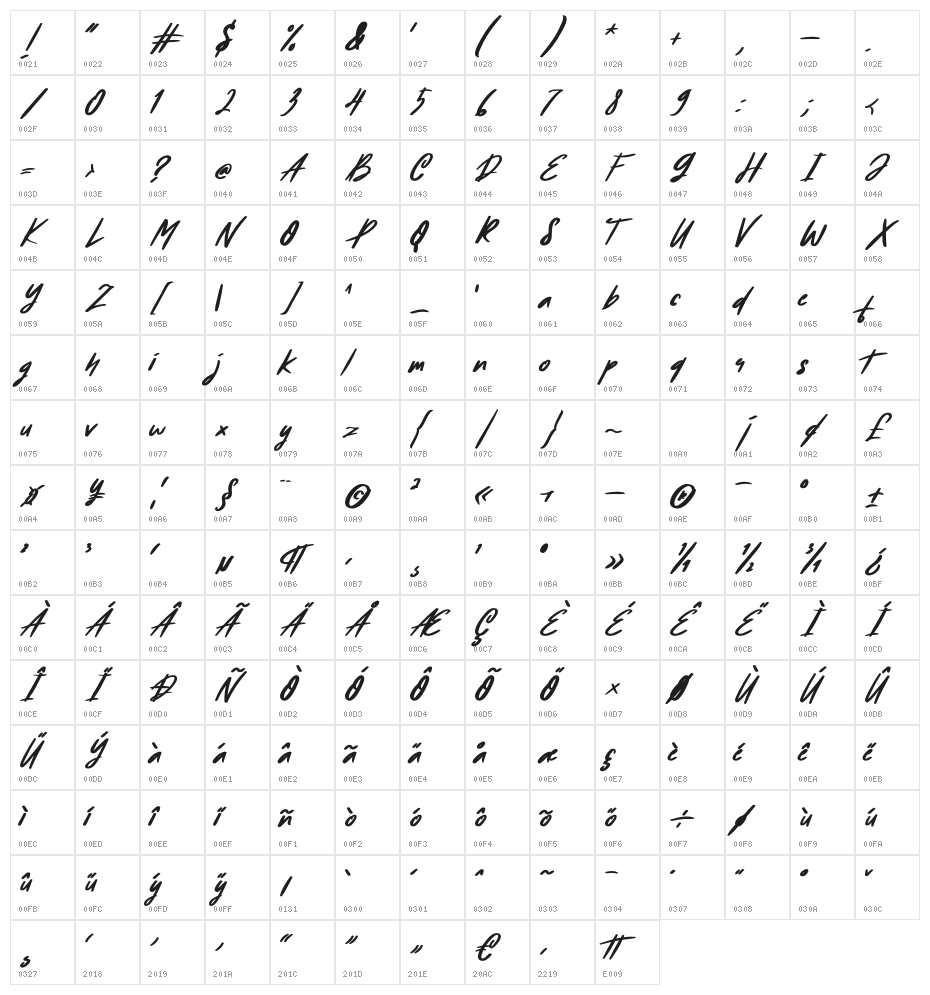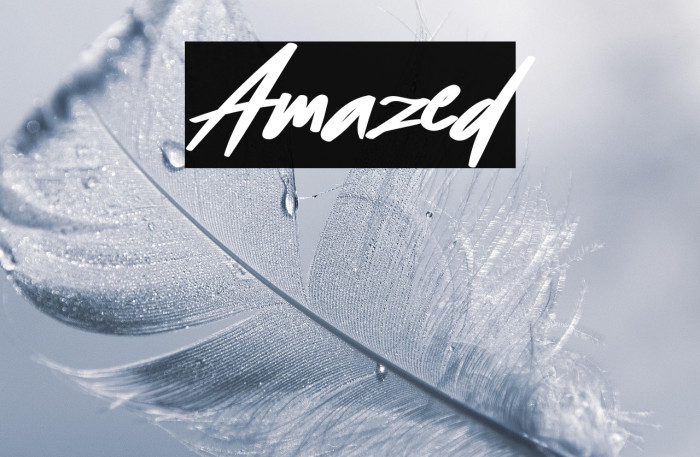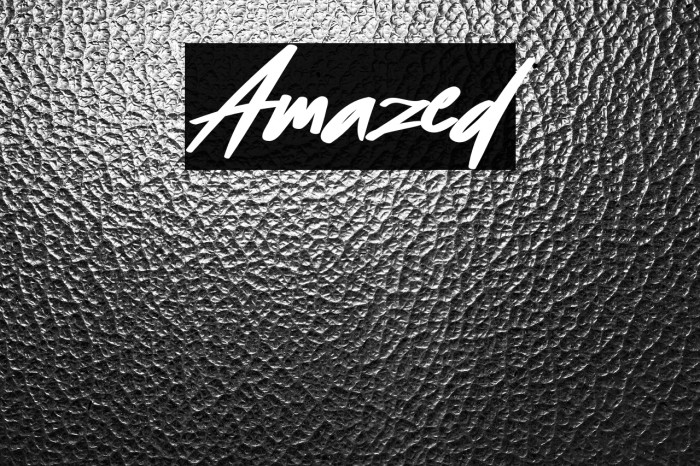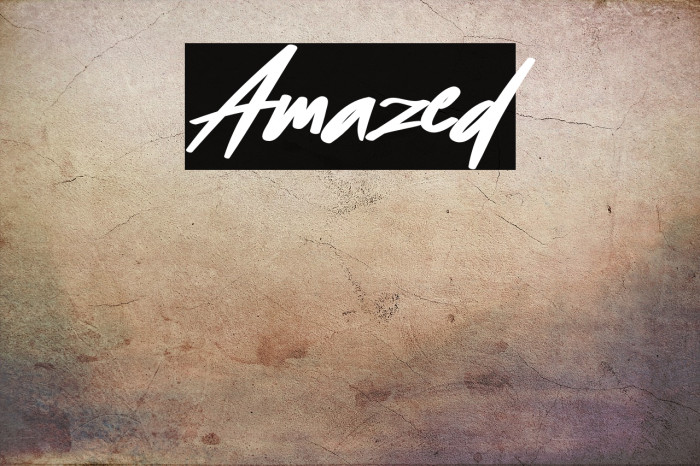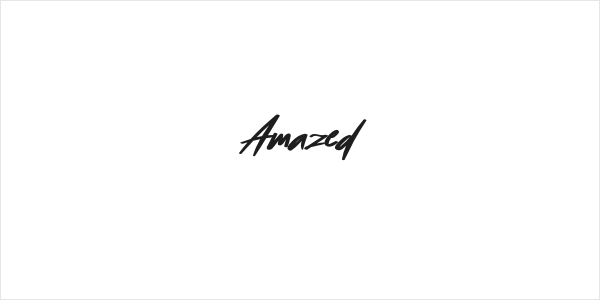
Amazed Font
Amazed Description
A bold, expressive script font with a handwritten style, featuring dynamic strokes and a casual, artistic flair.
| Use Case | Logos, Headlines |
| Proposed Projects | Greeting cards, invitations, artistic posters. |